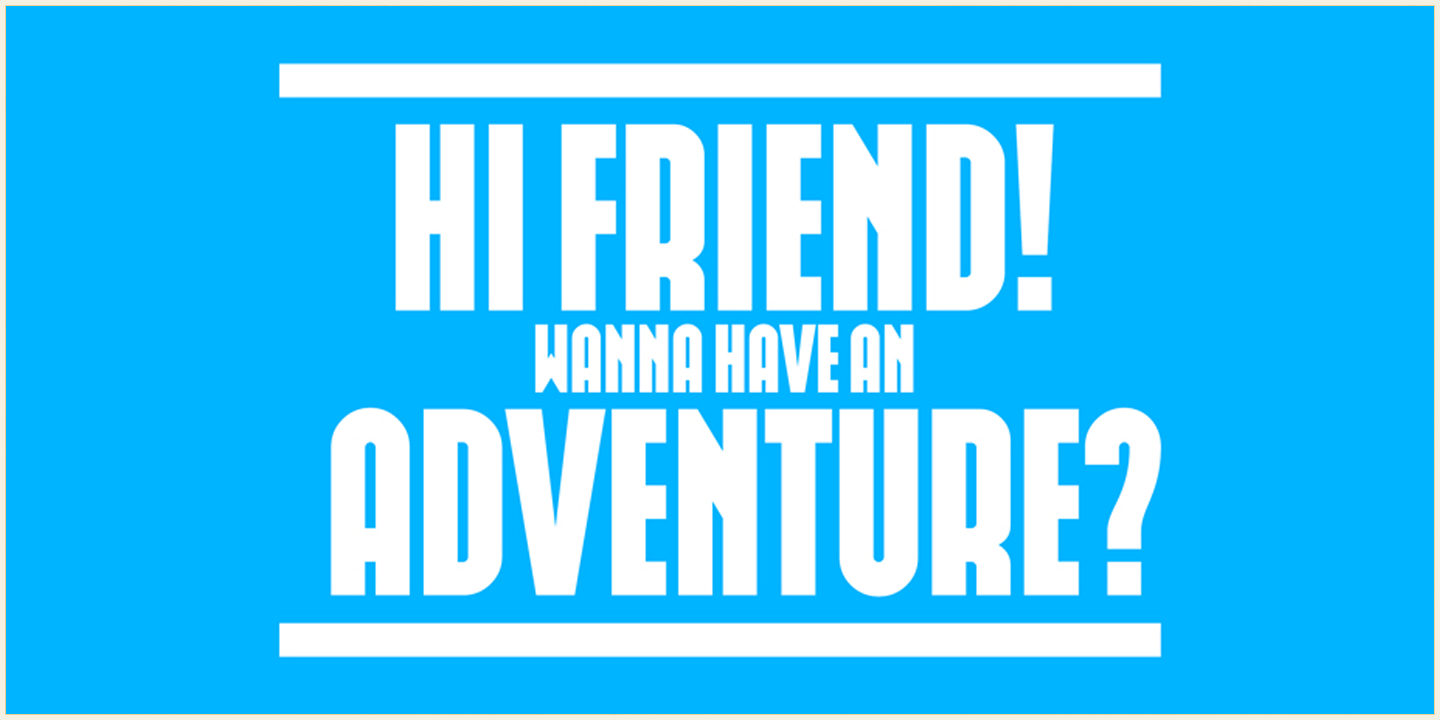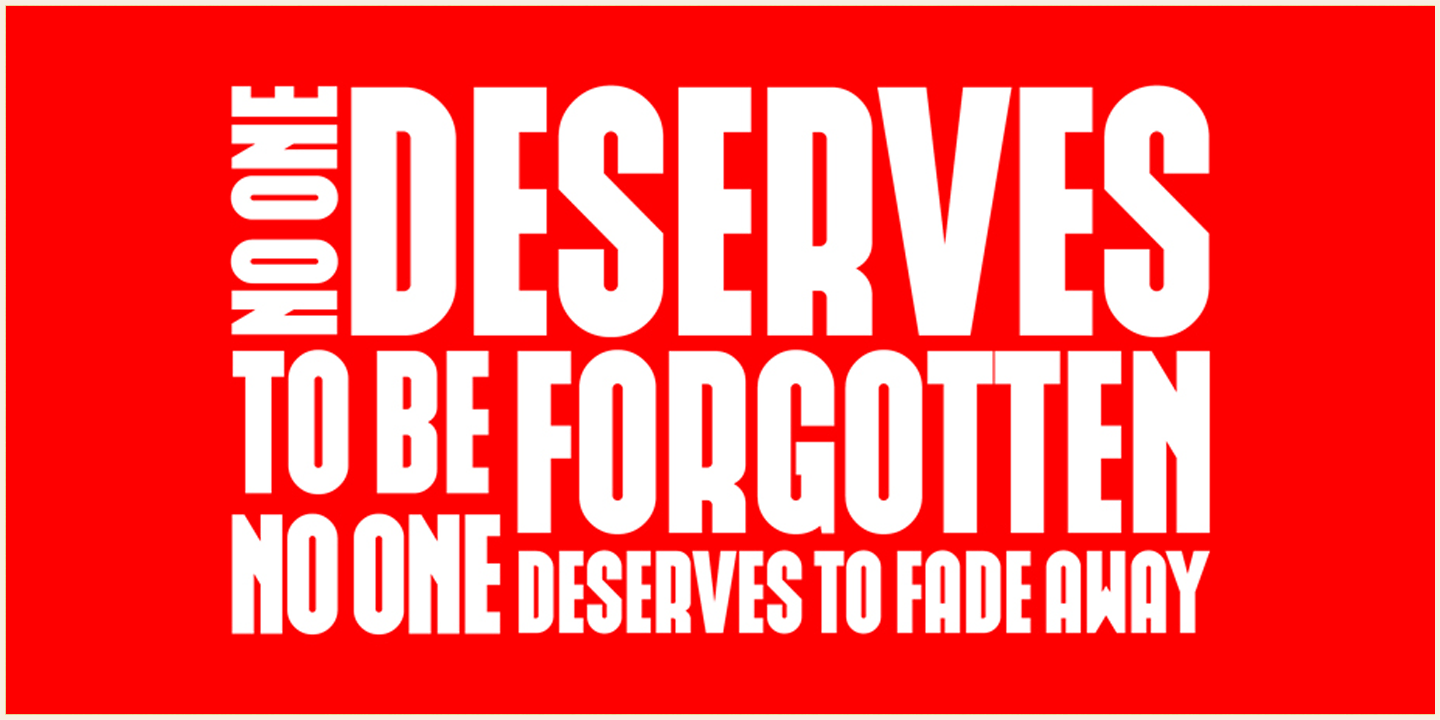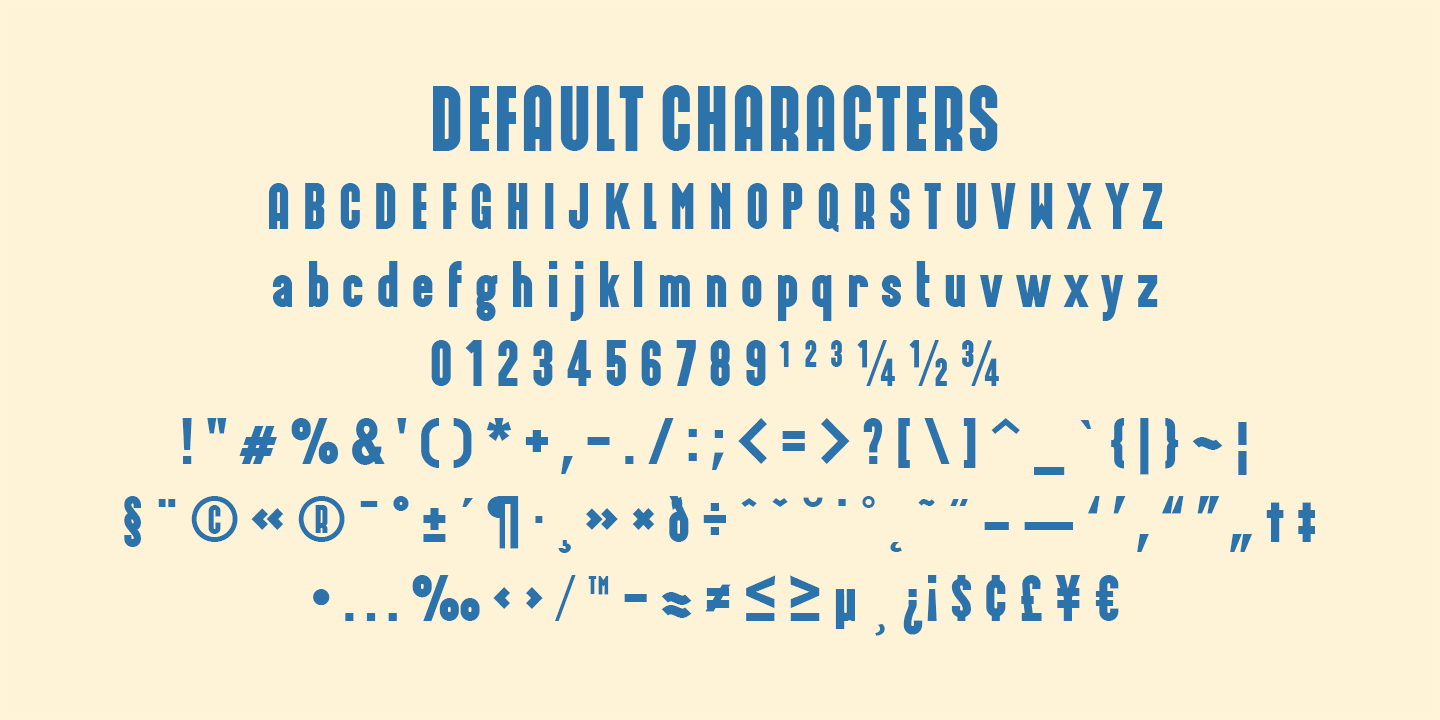
About Americaline
Since its foundation in 1901, the iconic building in the Rotterdam neighborhood Kop van Zuid, is shining. Where previously the Holland America Line was housed, you will now find Hotel New York. A building with a tremendous history. We\’re glad to take…